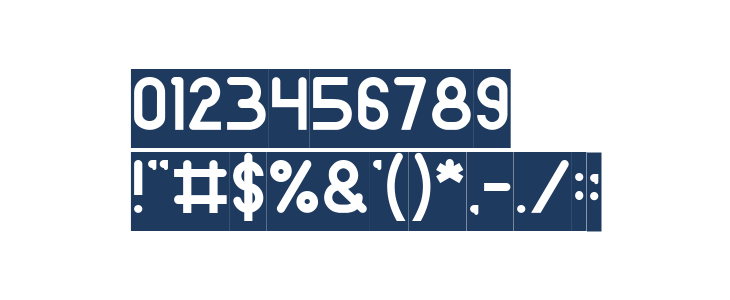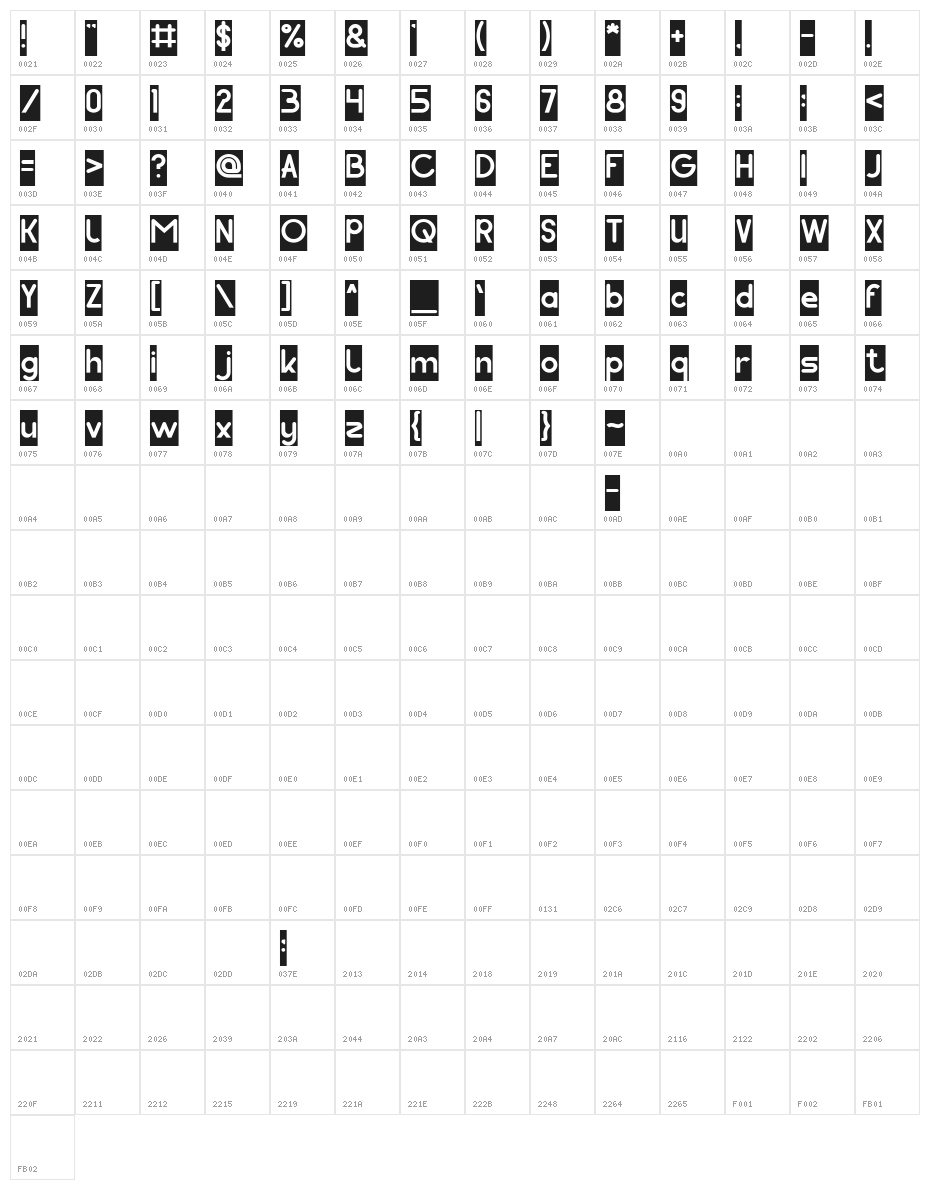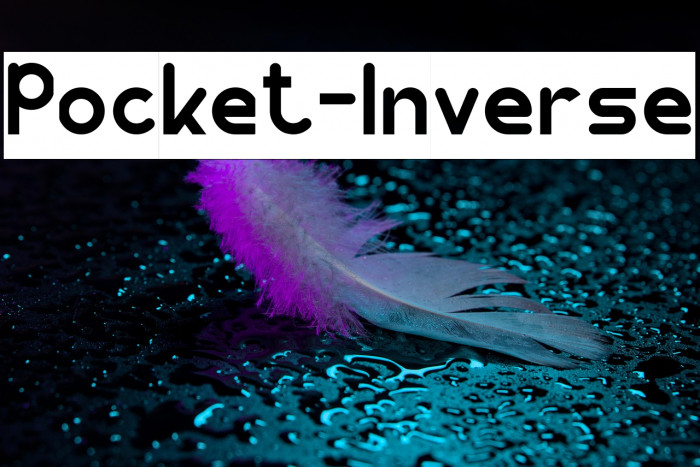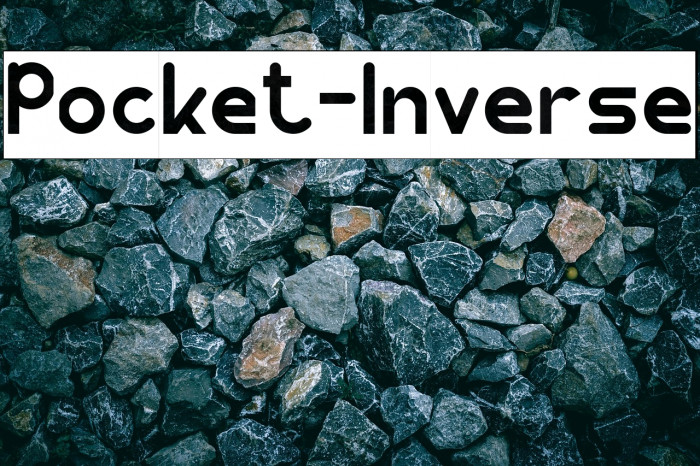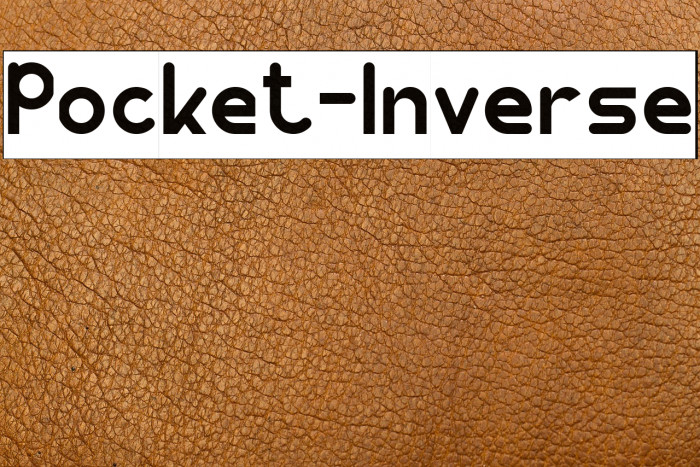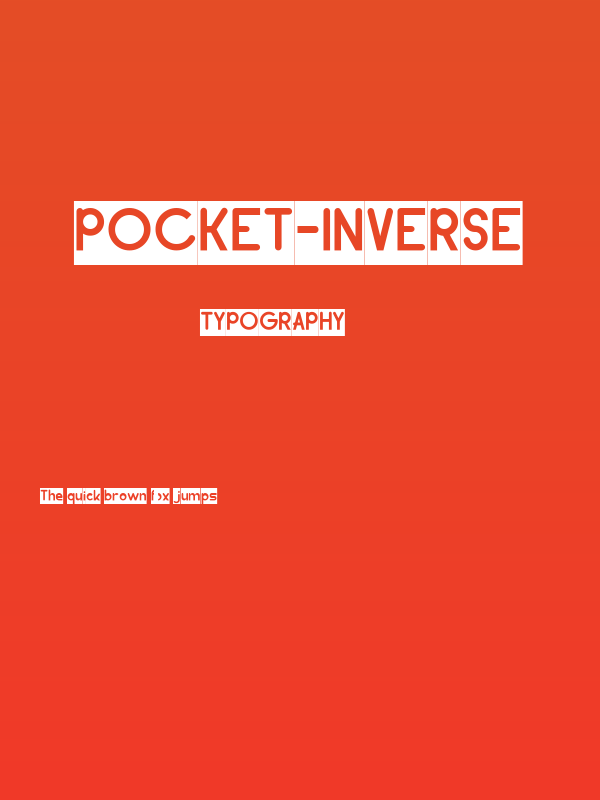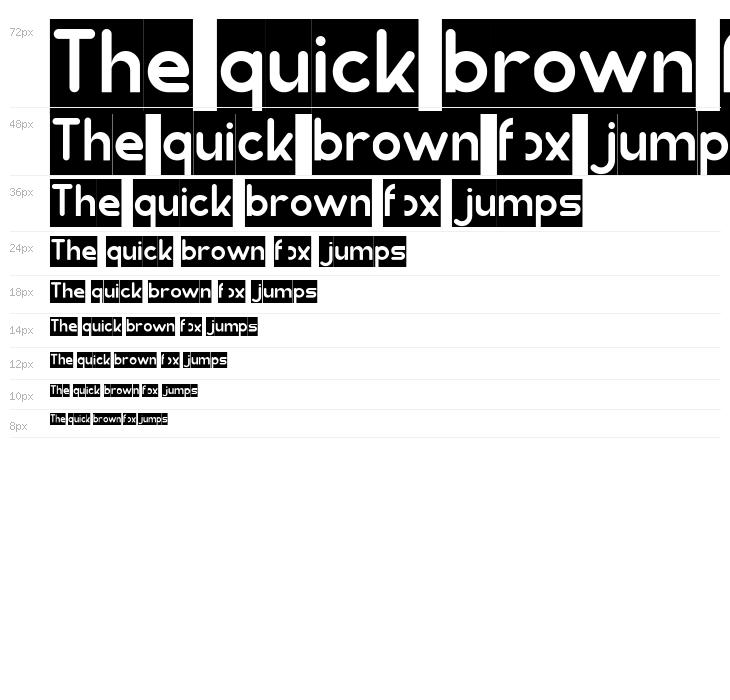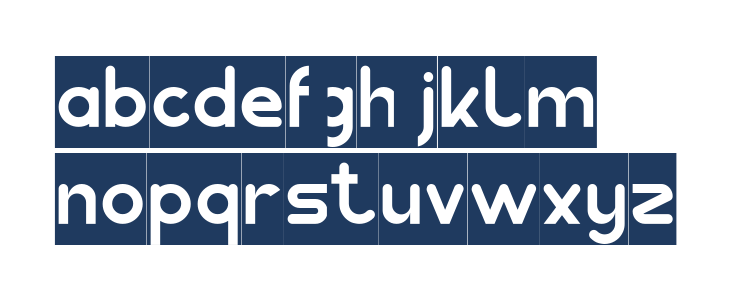
Pocket-Inverse Font
Pocket-Inverse Description
This font features a modern and geometric style with clean lines and uniform stroke widths. The characters are bold and have a distinct, futuristic appearance, making them stand out prominently. The uppercase letters are particularly striking with their angular forms, while the lowercase letters maintain a consistent style that complements the uppercase set. The numerals are clear and easy to read, with a similar geometric design. Special characters are well-integrated, maintaining the overall aesthetic of the font. The consistent stroke width across all characters gives it a cohesive look, suitable for various design applications.
| Proposed Projects | Ideal for branding, headlines, posters, and digital interfaces where a modern and bold statement is needed. |